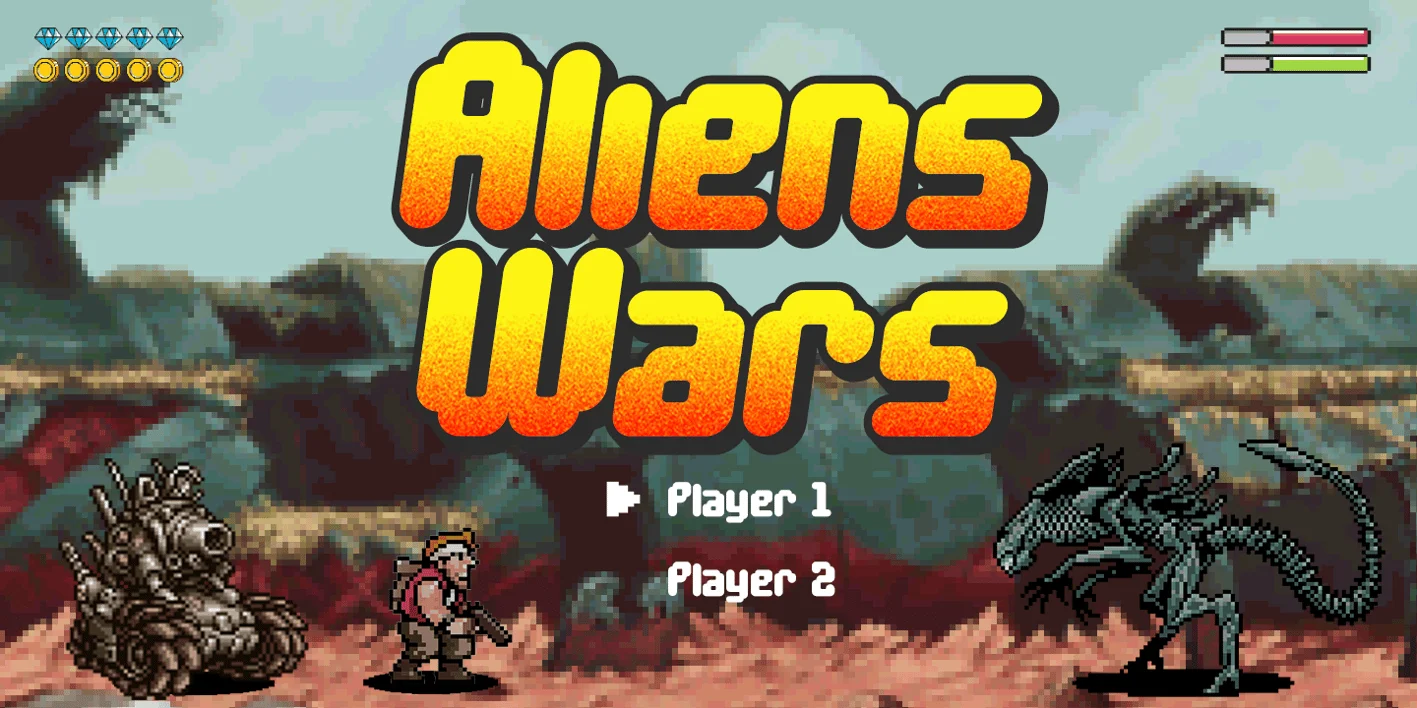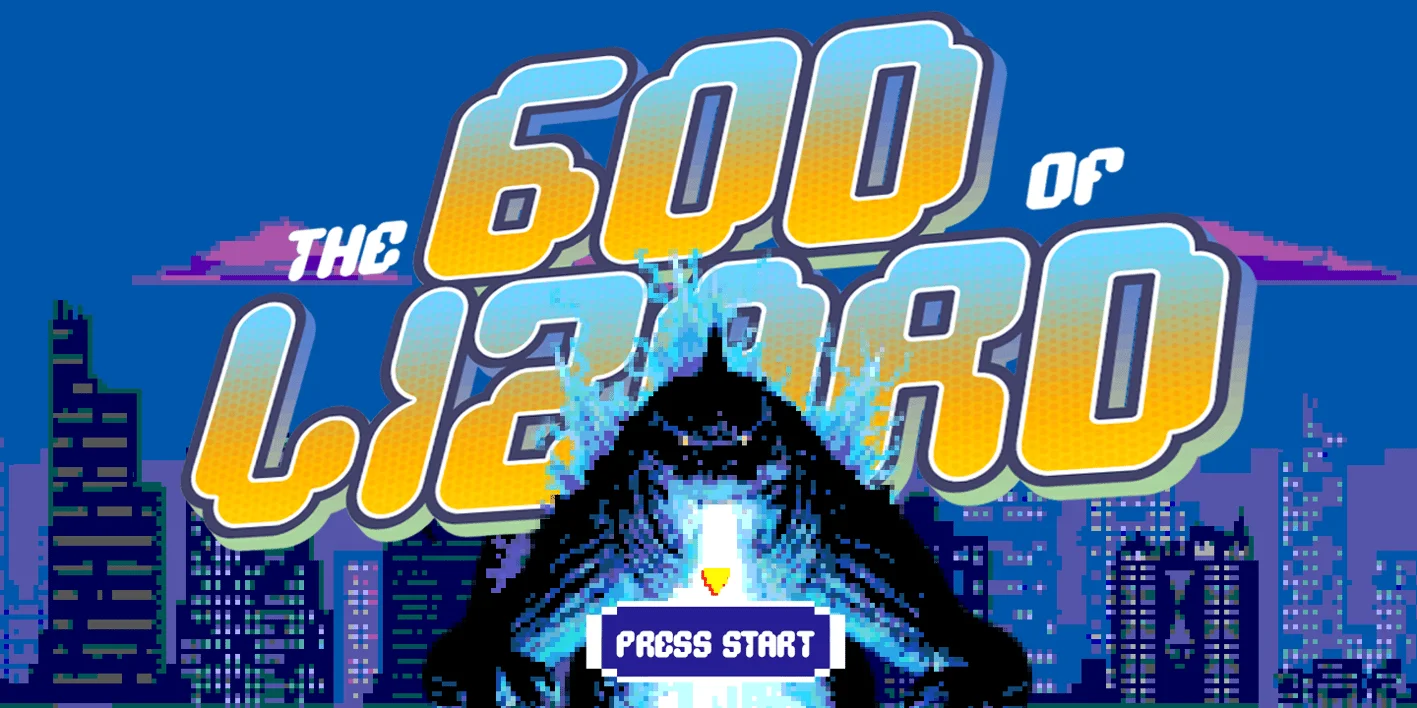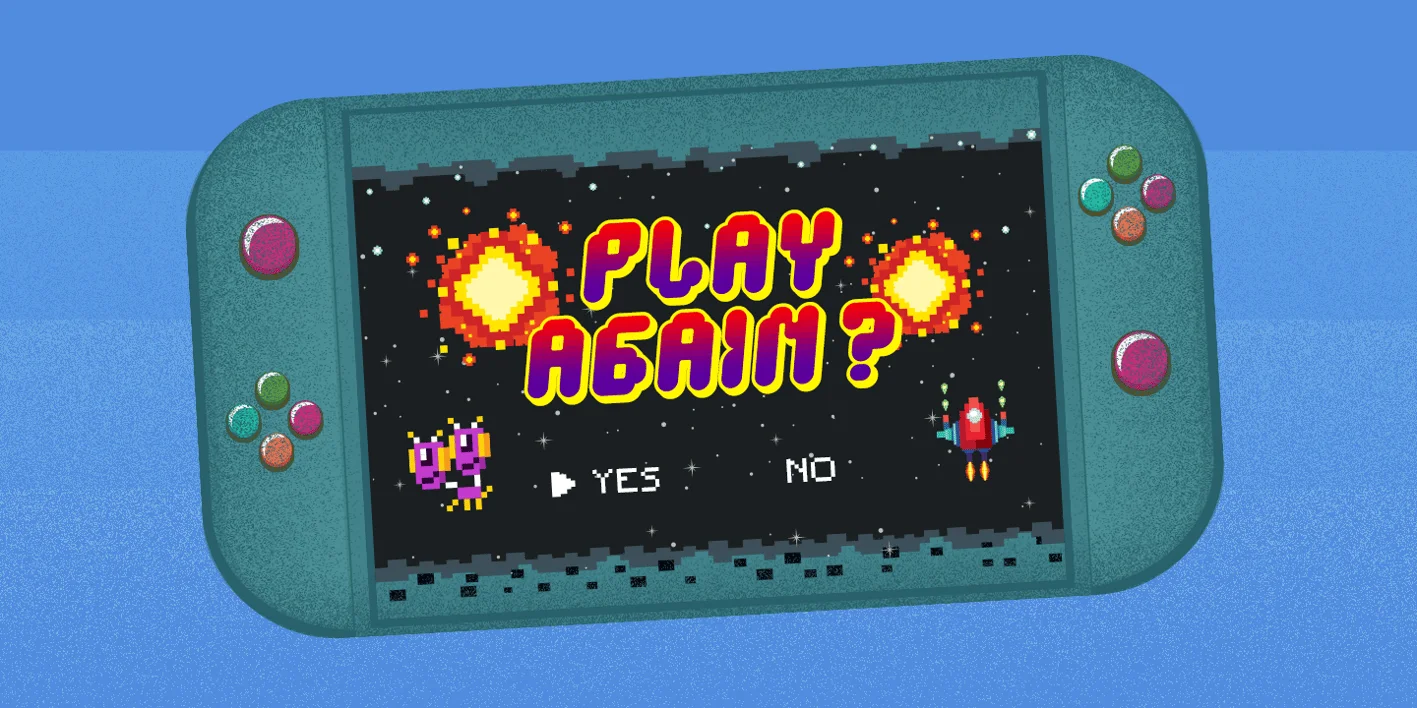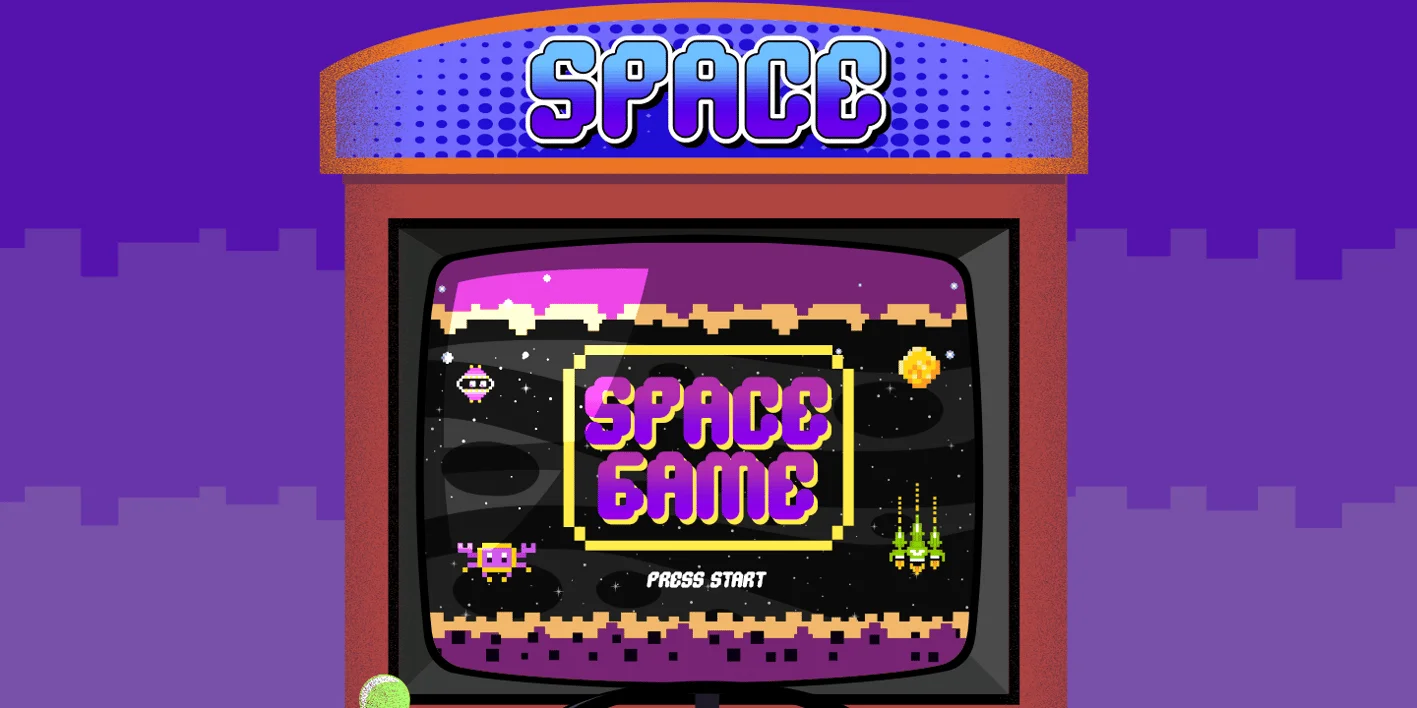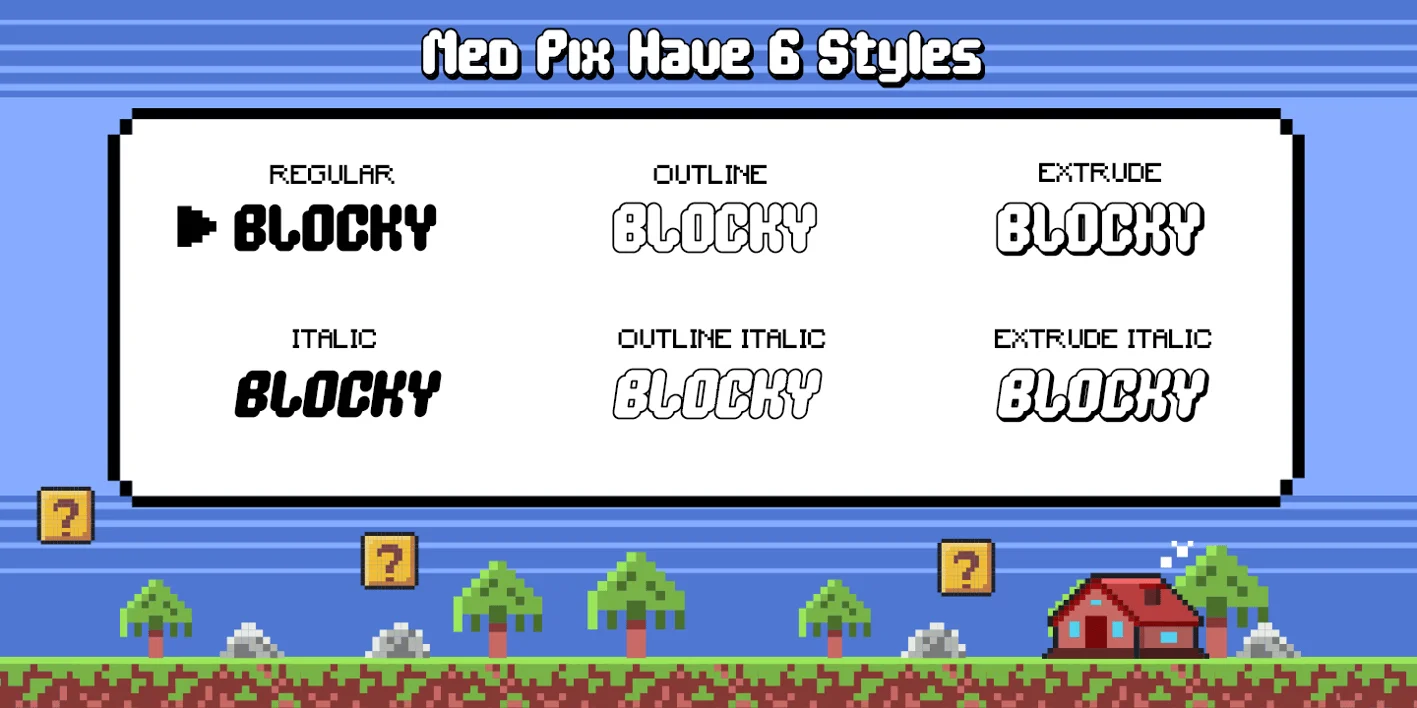
Nano Pix Font
A good typeface communicates tone before a single word is read. Nano Pix achieves this through controlled contrast that rewards close inspection. The typeface brings a versatile sensibility to a broad range of creative disciplines, with consistent type colour across continuous text that holds up whether the work is print-first or screen-first.
In practice, Nano Pix proves particularly effective for logo design, environmental graphics, signage systems, editorial layouts, brand identity systems. Designers reaching for it find that the type decisions feel resolved rather than laboured — a useful quality when client timelines are tight.
The range of applications extends to poster creation, advertising campaigns, social media graphics, packaging design. That breadth is deliberate: the proportions and spacing were stress-tested across a wide range of mock briefs before the typeface was finalised.
Nano Pix sits comfortably alongside both classic and contemporary typefaces in multi-font hierarchies. It takes direction rather than competing for attention — a quality that experienced designers know is harder to find than it appears.
In-house creative teams at consumer brands find Nano Pix a reliable choice for projects that demand both personality and restraint. The design avoids the self-conscious quirkiness that dates quickly, settling instead for considered distinctiveness that holds up over time.